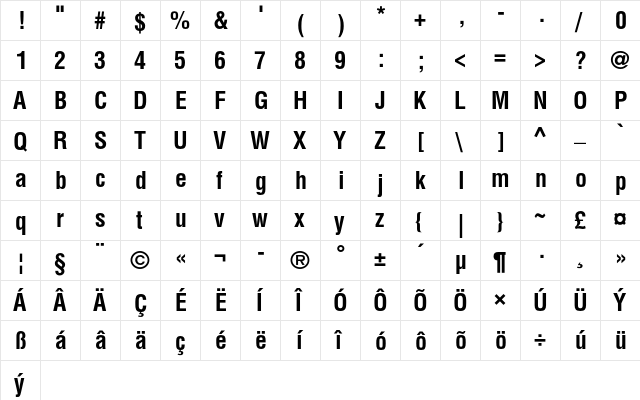
Helvetica CE Bold Condensed
Design Context for Helvetica Typeface
Helvetica is a composed and adaptable typeface that performs quietly and consistently across a wide range of design contexts. The heavy weight commands attention and anchors typographic hierarchies. Its narrow stance lets it pack a punch even in space-constrained designs.
Pro Tip: Pair Helvetica with a font of contrasting weight or personality to build a more expressive typographic hierarchy.